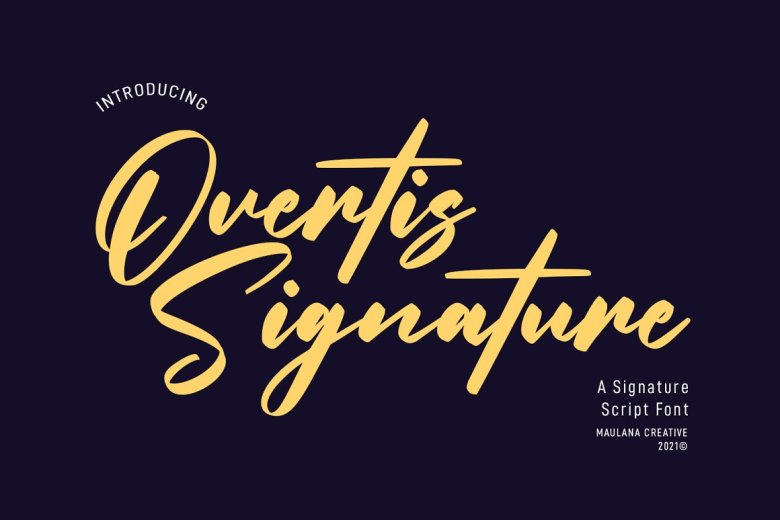
Overtis Signature Font
Overtis Signature is a casual fancy signature script font. Regular, Contrast Stroke, slanted and fun character with a bit of ligatures. Just to add a little more creative juices there. Overtis Signature font has support multilingual more than 100+ language.
This font is suitable for use in logo design, Social media, Movie Titles, Books Titles, a short text even a long text letter and good at your secondary text font with sans or serif. Make something beautiful with Overtis Signature.
Overtis Signature Script Font